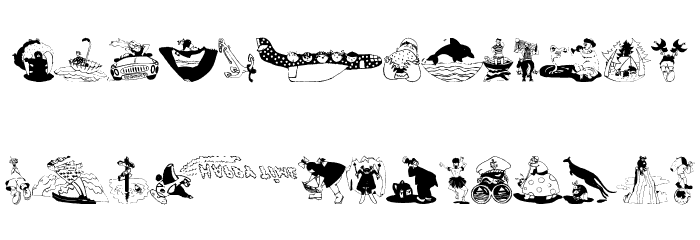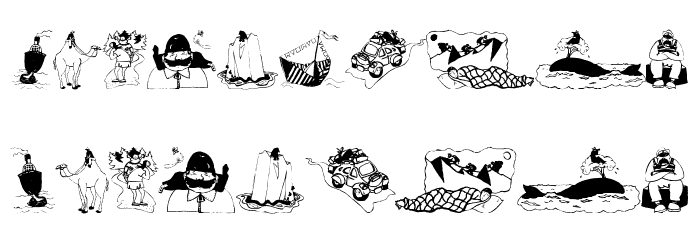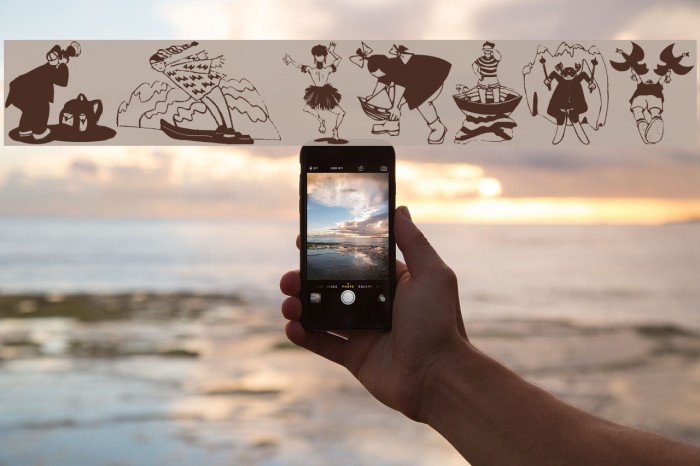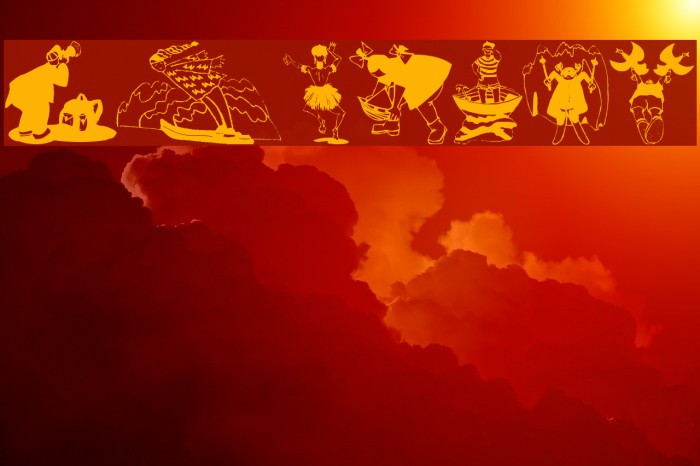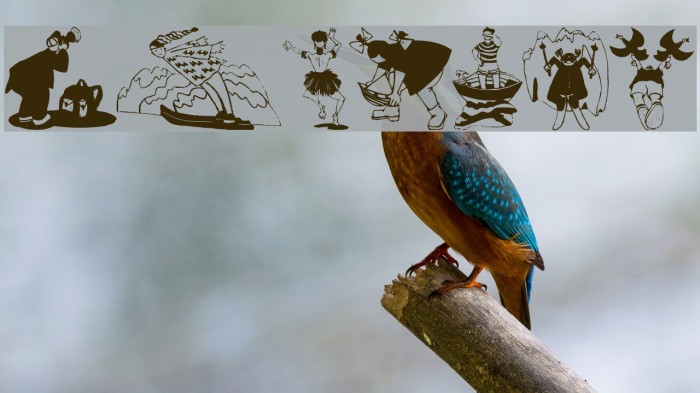
Tourism Font
This is a decorative font featuring whimsical and playful illustrations that replace traditional letterforms. Each character is represented by a unique tourism-themed image, such as airplanes, landmarks, and travelers. The style is cartoonish and light-hearted, making it ideal for projects that require a fun and engaging visual element. The illustrations are detailed, with a mix of bold outlines and intricate patterns, creating a dynamic and eye-catching effect. The font is not suitable for body text due to its illustrative nature but can be used effectively in headlines or as decorative elements in design projects.
A decorative font with tourism-themed illustrations replacing letters.
- Proposed Projects: Ideal for travel brochures, children's books, playful posters, and tourism-related branding.
- Use Case: Headlines, Logos, Decorative elements